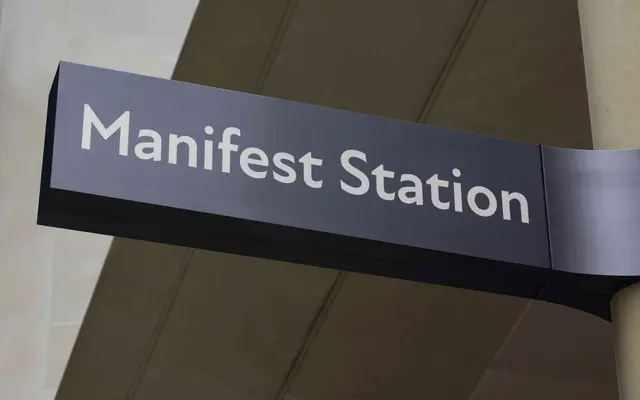
New Atten specimen from Newlyn
A humanist sans with classical capital proportions and a rounded variant, designed with long-text legibility and a gently personable British character.
Named in reference to Sir David Attenborough's measured delivery, New Atten pairs a humanistic structure with classical capital proportions to sit comfortably at text sizes. The family runs across five weights with matching italics, and a Round variant adds mono-linear softness for extended reading. Accessibility features and alternate character sets, including infant a and g forms, make it suitable for children's publishing alongside general editorial and typographic work.
New Atten is explicitly described as combining a humanistic structure with classical capital proportions, making humanist sans the appropriate subcategory. Its rounded variant and text-optimisation features reinforce its warm, legibility-focused character rather than geometric or grotesque neutrality.